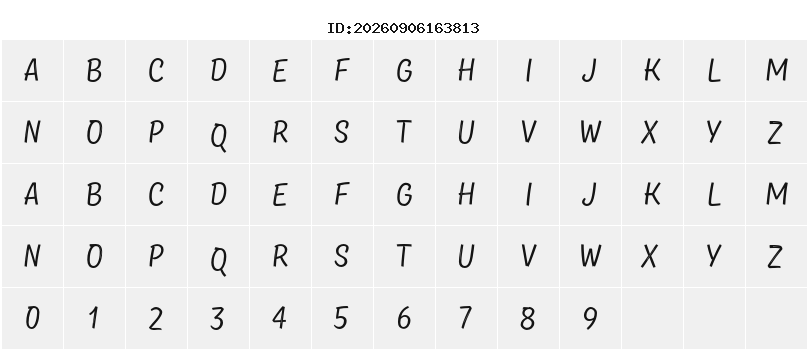
• Font Name: TT Masters DEMO Birds Regular
• Designer: Typetype
• Manufacturer: TypeType
• Description: Designed for Typetype in 2015 by Ivan Gladkikh. TT Masters is one of series of font families which were designed for use in web and mobile applications, print and multimedia environments.
About TT Masters DEMO Birds Regular.otf
TT Masters DEMO Birds Regular.otf is a modern, elegant sans-serif font designed for ultimate readability and visual harmony. Perfect for branding, headlines, web design, and print materials.